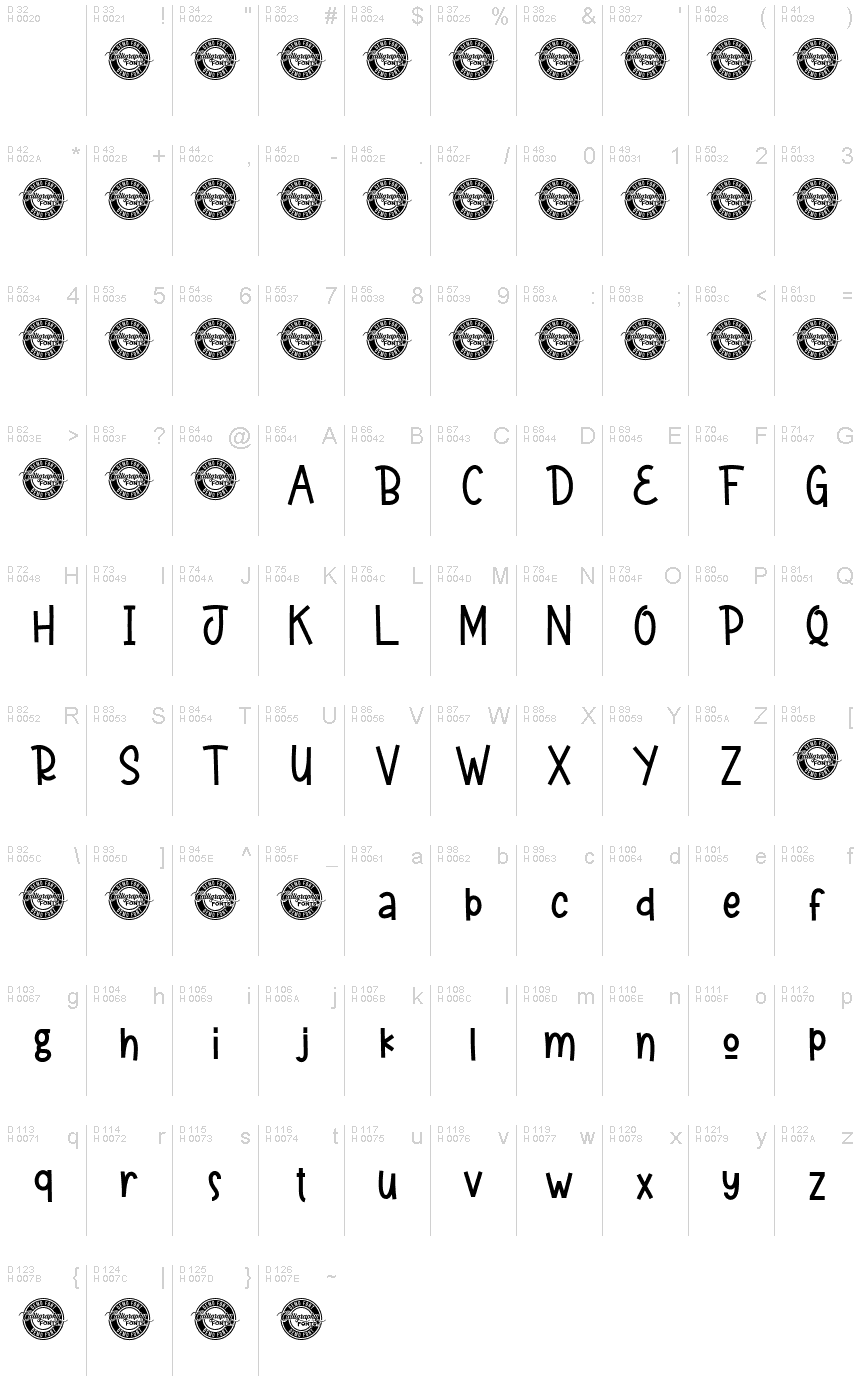
Cute Koala Demo
Cute Koala is the perfect display font for any project that needs a touch of whimsy and playfulness. Designed by Widiyanti & Sarah SP, this semi-light comic typeface is just what you need to add some fun to your designs. Its playful curves and rounded edges are reminiscent of a cute koala's cuddly features, making it ideal for children's books, greeting cards, logos, and branding projects. With its design, this font will not only capture your audience's attention but also help improve your website's visibility on search engines. Get creative with Cute Koala!